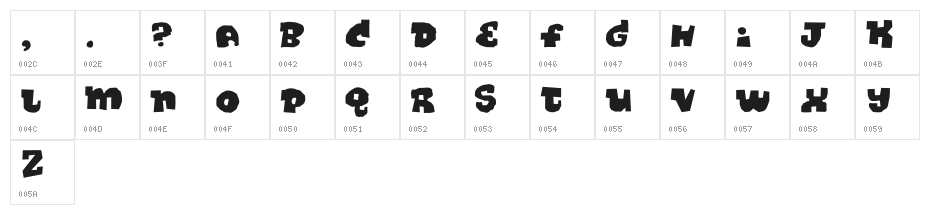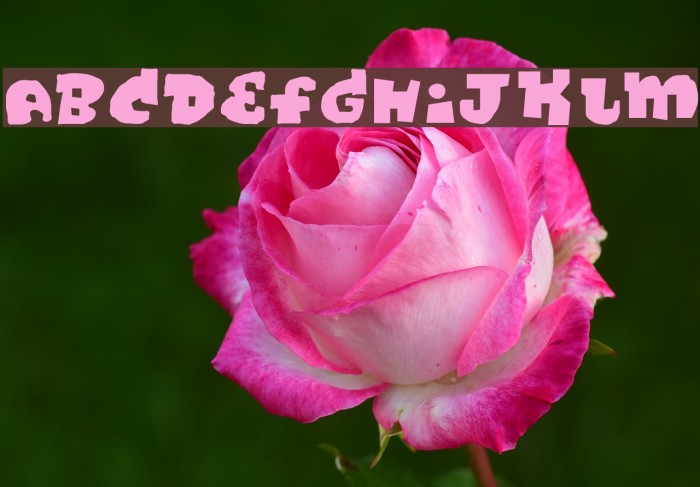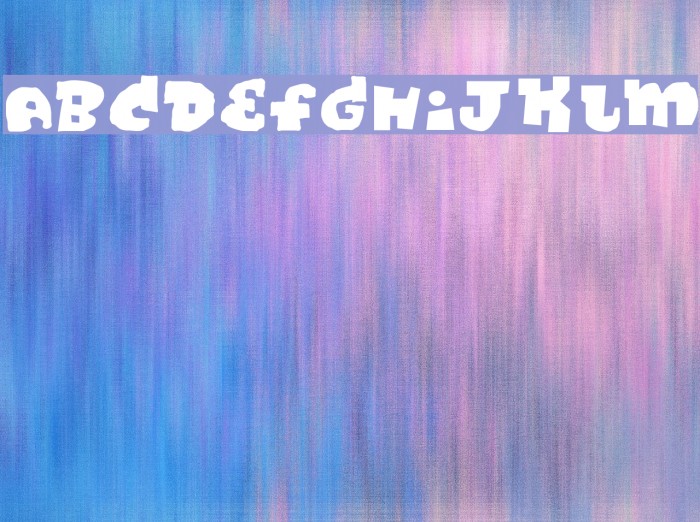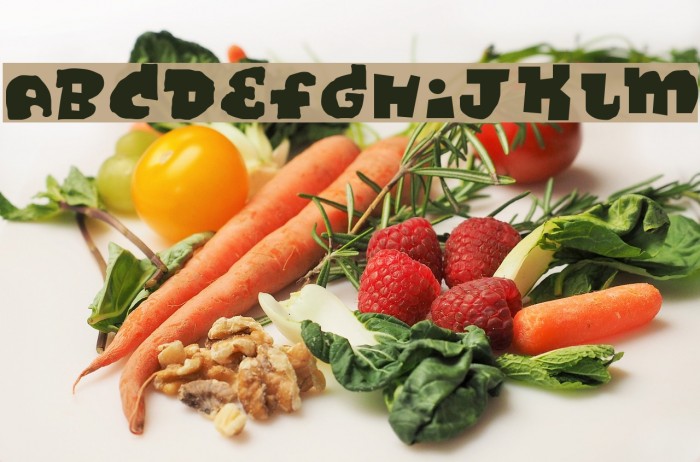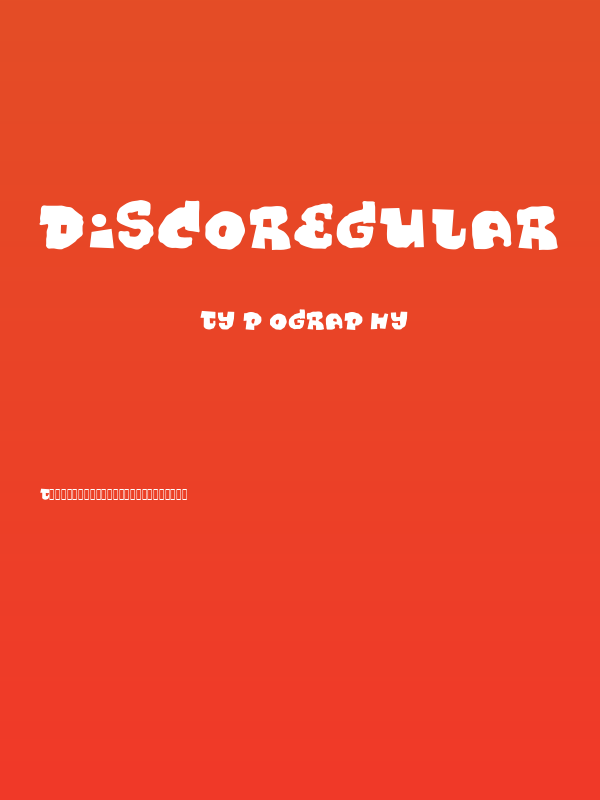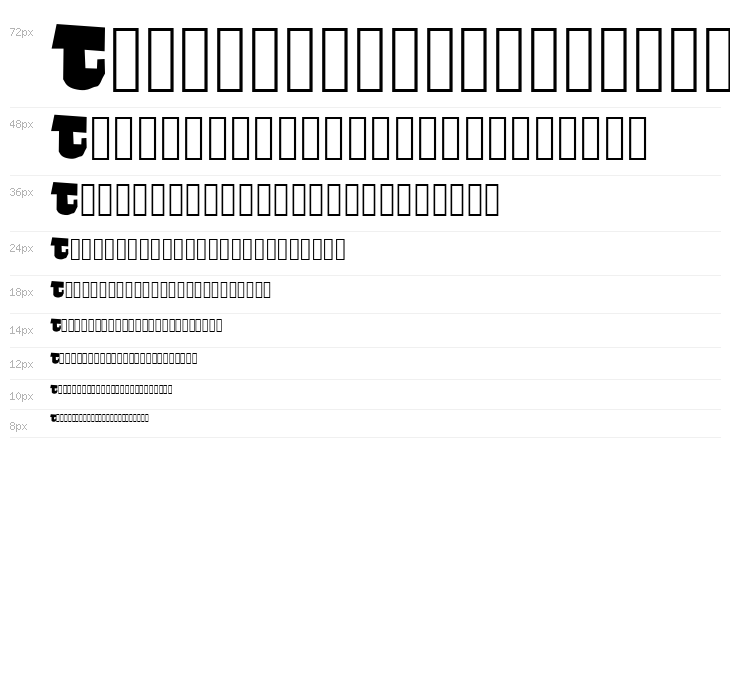
DiscoRegular Font
DiscoRegular Description
This font features a bold and playful design, characterized by its chunky and irregular letterforms. The uppercase letters have a whimsical and dynamic appearance, with varying stroke widths that create a lively and energetic feel. The lowercase letters maintain this playful style, complementing the uppercase with their own unique flair. The overall look is reminiscent of retro or vintage styles, making it ideal for projects that require a fun and eye-catching typeface. The font's boldness ensures it stands out, while the irregular shapes add a touch of creativity and uniqueness.
| Overall Style | Vintage |
| Proposed Projects | Ideal for posters, party invitations, music album covers, and any project needing a fun, retro aesthetic. |